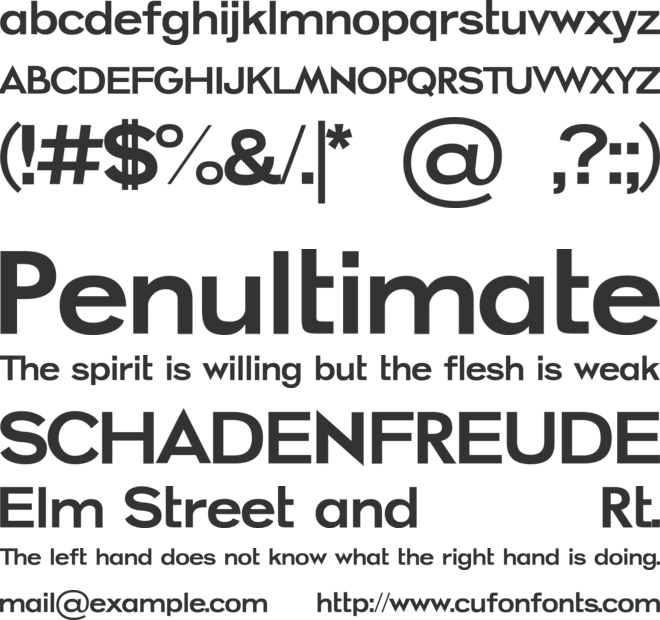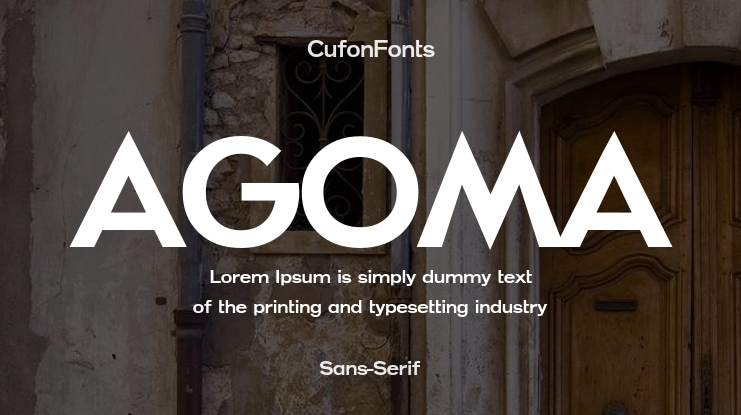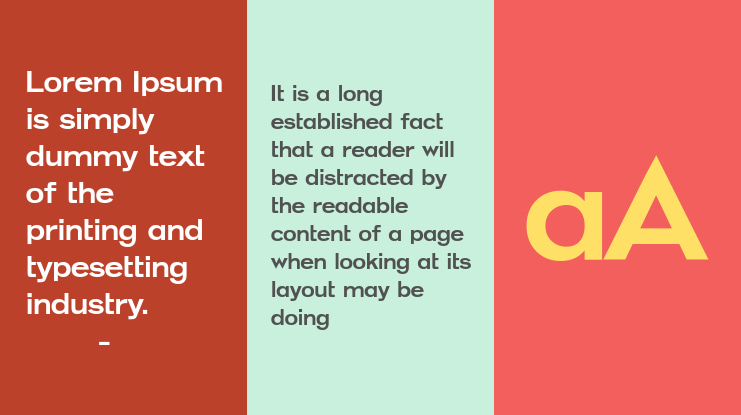
AGOMA Font Family
Agoma is a geometric sans serif with over 600 glyphs and multilingual support—perfect for minimalist branding, tech interfaces, and editorial precision.